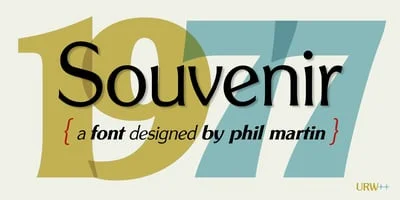
Souvenir Gothic Font
Souvenir Gothic Font is perfect for vintage travel posters, retro tourism branding, nostalgic postcard designs, classic hotel signage, heritage museum displays, antique shop materials, memorial plaques, historical documentaries, commemorative publications, and artistic projects that celebrate timeless memories and cultural heritage.
What makes Souvenir Gothic Font truly exciting is its unique ability to evoke cherished memories and nostalgic emotions while maintaining strong visual presence and contemporary usability. This remarkable typeface captures the essence of bygone eras with its distinctive character shapes and vintage appeal, featuring carefully crafted letterforms that balance historical authenticity with modern design sensibilities. The font's emotional resonance and memorable personality make it perfect for projects that need to create lasting connections with audiences.
The Souvenir Gothic Font family includes multiple weights and variations: Light, Regular, Medium, Bold, and Condensed versions. Each family member maintains the distinctive nostalgic character while offering different levels of visual impact and space efficiency. The comprehensive character set supports extended language coverage and decorative elements, making it versatile for both display and text applications.
When you choose Souvenir Gothic Font, you're selecting a typography treasure that transforms ordinary messages into memorable experiences. This exceptional typeface excels in applications where emotional connection is paramount, delivering excellent readability while evoking powerful feelings of nostalgia and warmth. Whether you're designing commemorative materials, travel branding, cultural projects, or heritage campaigns, this font provides the distinctive character and emotional depth that resonates with audiences who appreciate authentic storytelling and meaningful design.